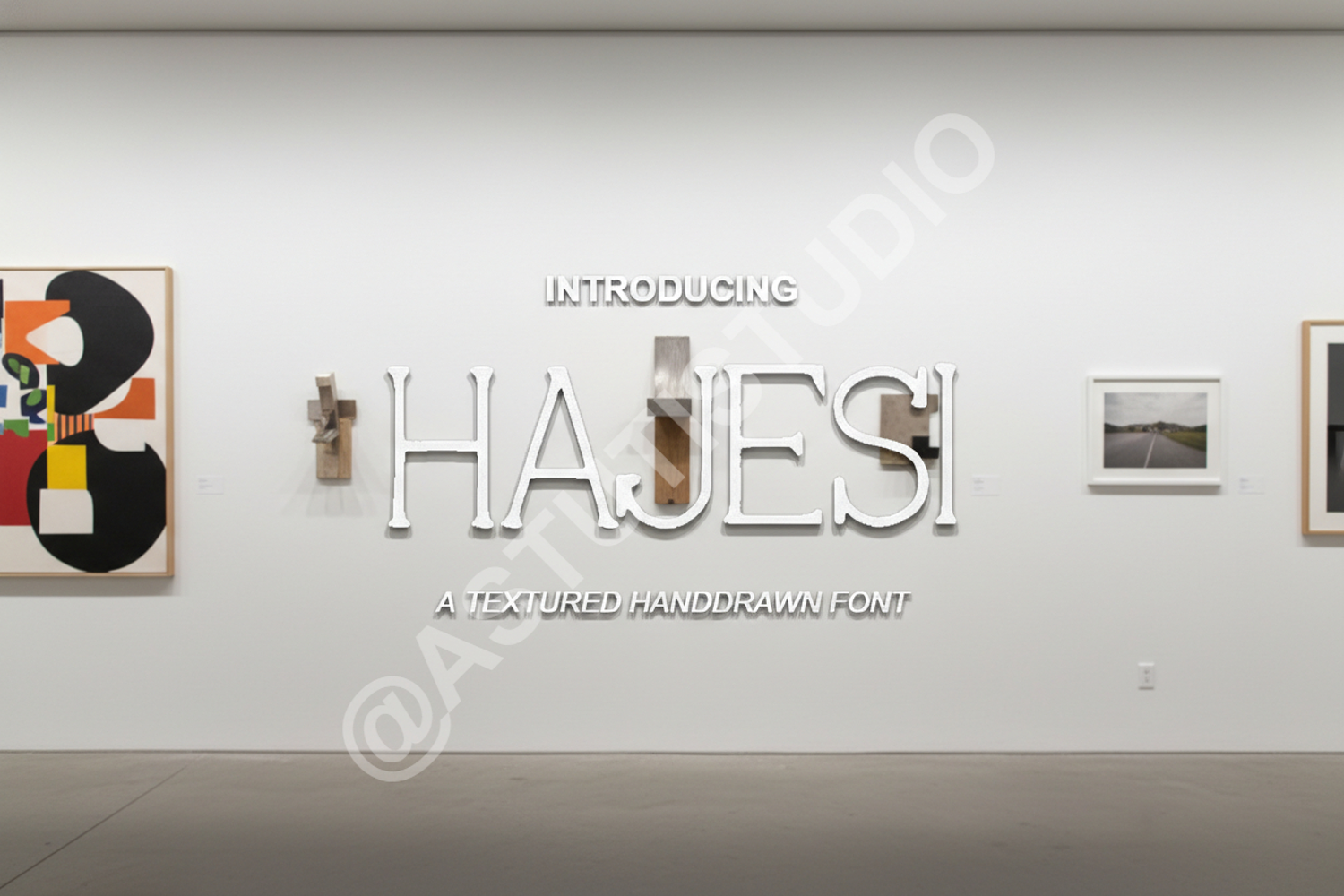
Hajesi - Elegant Modern Serif Font
Hajesi
Elevate your creative projects with Hajesi, a premium serif font that masterfully blends timeless elegance with contemporary minimalism. Designed for high-end aesthetics, Hajesi offers a sophisticated silhouette with clean lines and refined curves, ensuring your work stands out with a professional and polished finish.
- Branding and Identity: Create memorable logos and brand marks that exude luxury and trust.
- Wedding Stationery: Perfect for elegant invitations, menus, and save-the-date cards.
- Editorial Design: Ideal for high-fashion magazine headers, book covers, and sophisticated layouts.
- Social Media: Design striking quotes and promotional graphics for Instagram and Pinterest.
- Product Packaging: Enhance the visual appeal of cosmetics, jewelry, and lifestyle product labels.